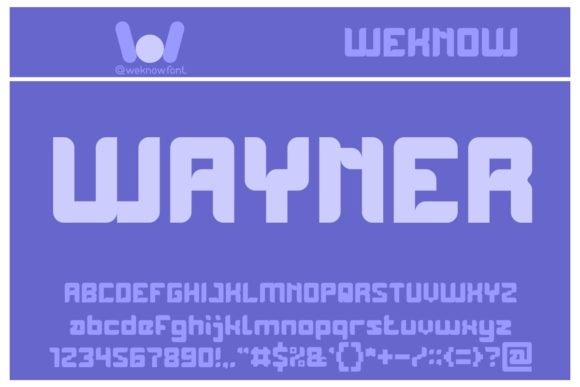
Introducing Wayner Font, the ultimate display font that will take your designs to new heights. With its bold, eye-catching letters and unique style, this font is sure to make a lasting impression.
Whether you're creating a vacation website, a social media post, or a marketing brochure, Wayner Font is the perfect choice. It's easy to read, versatile, and sure to grab attention.
With Wayner Font, you can:
* Create stunning headlines that will captivate your audience
* Add a touch of personality to your social media posts
* Design eye-catching marketing materials that will get results
* Express yourself creatively in a way that's both unique and stylish
Don't settle for ordinary fonts. Choose Wayner Font and make your designs stand out from the crowd.